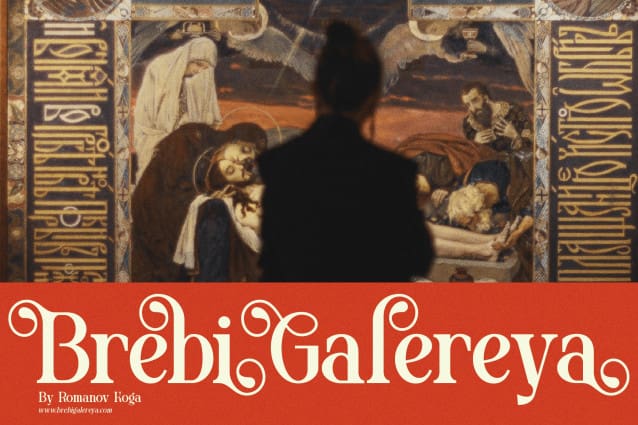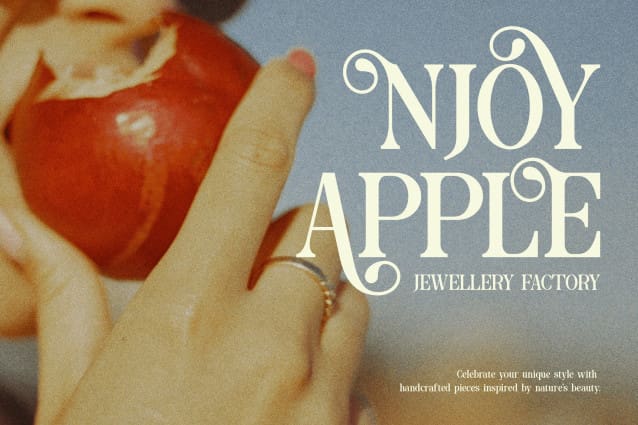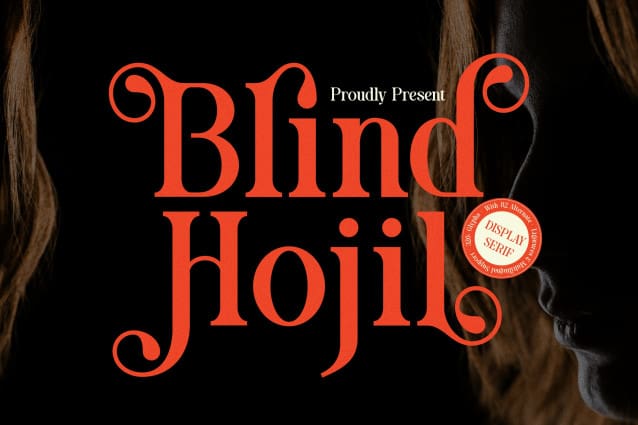
Blind Hojil Font
Blind Hojil Font | Display Serif Font, from Denustudios, suitable for any projects such as: logos, branding projects, homeware designs, product packaging, mugs, quotes, posters, shopping bags, t-shirts, book covers, name card, invitation cards, greeting cards, label, photography, watermark, special events, and all your other lovely projects that need a Display Serif Font taste.